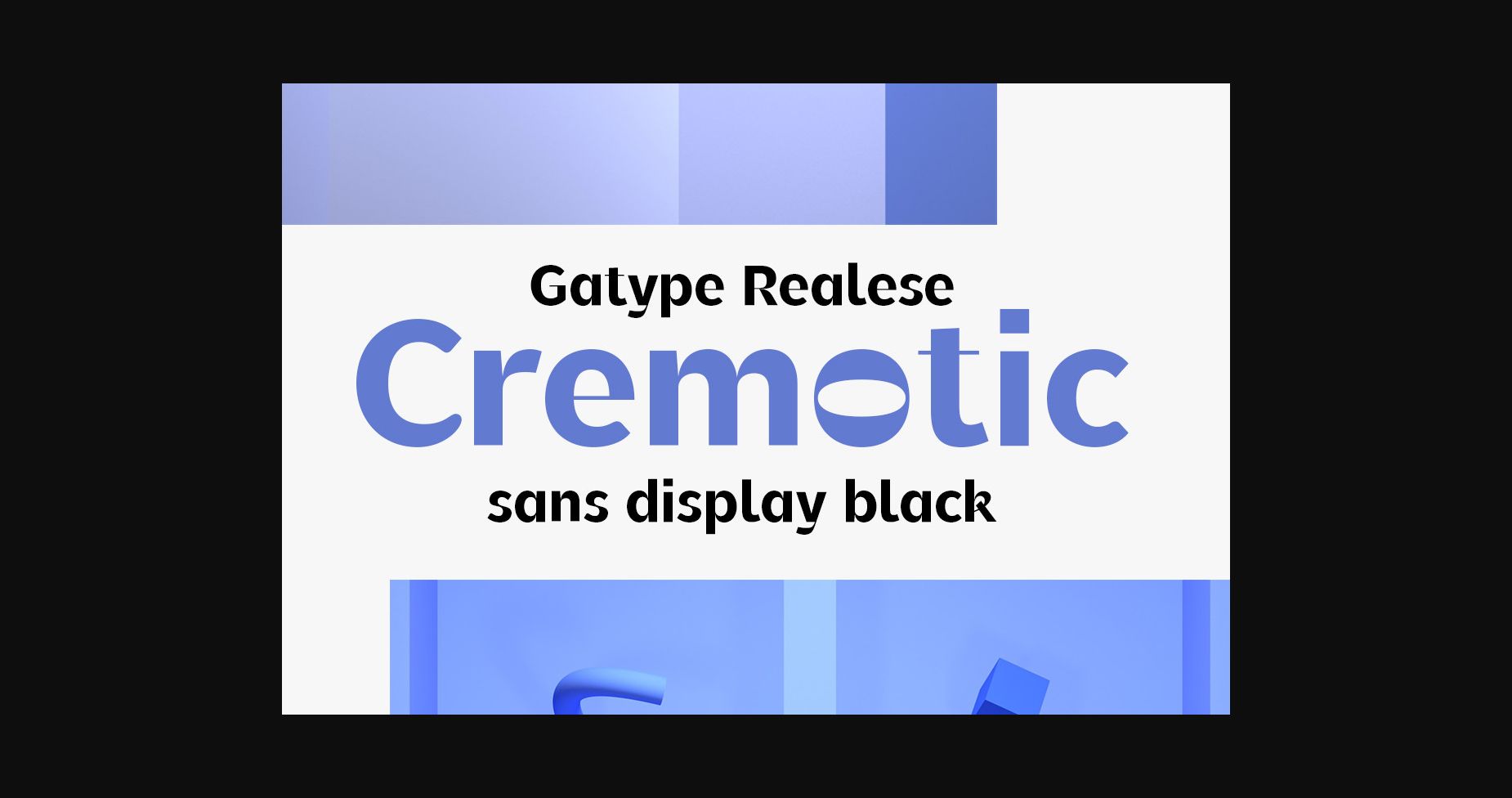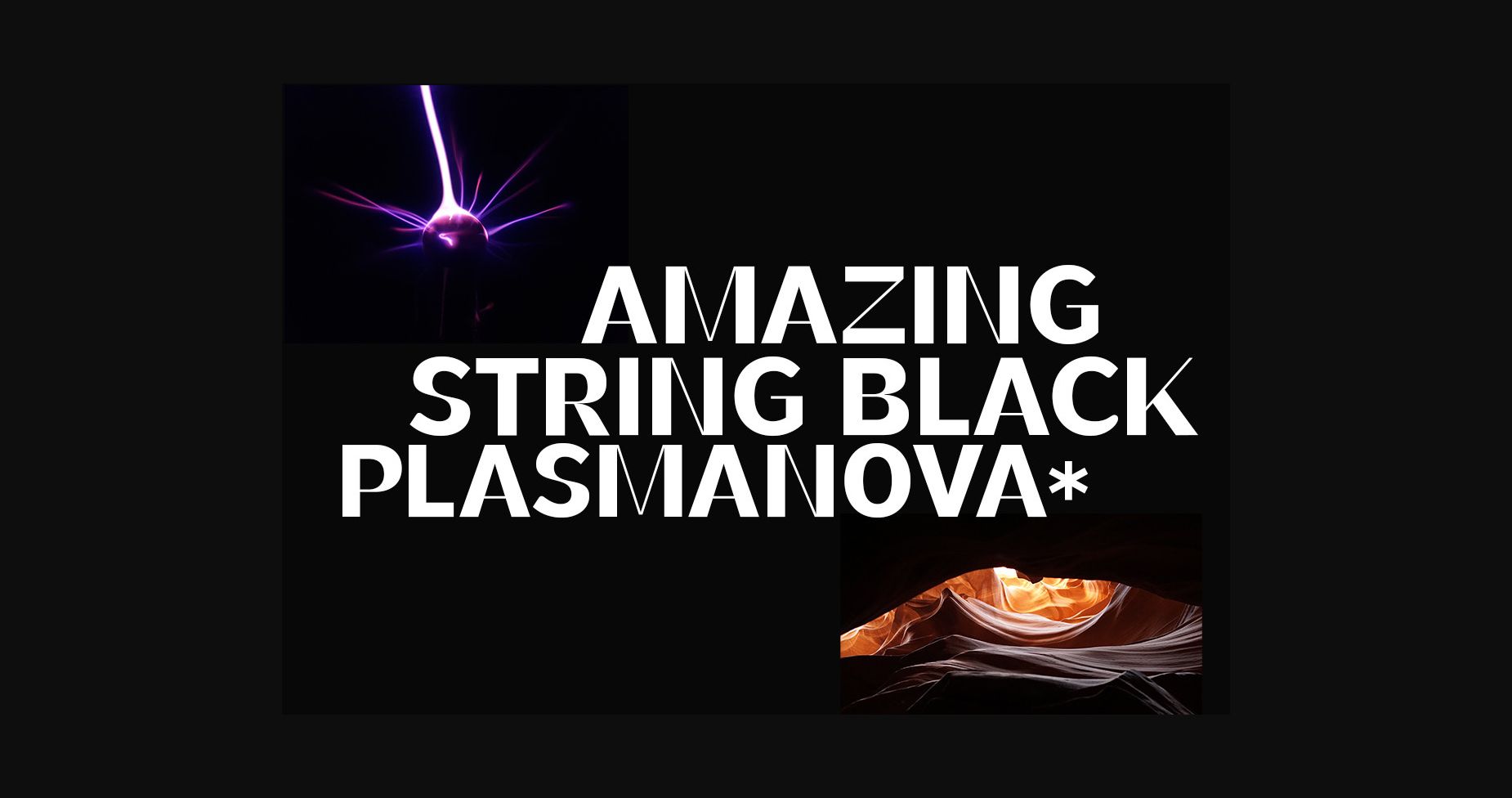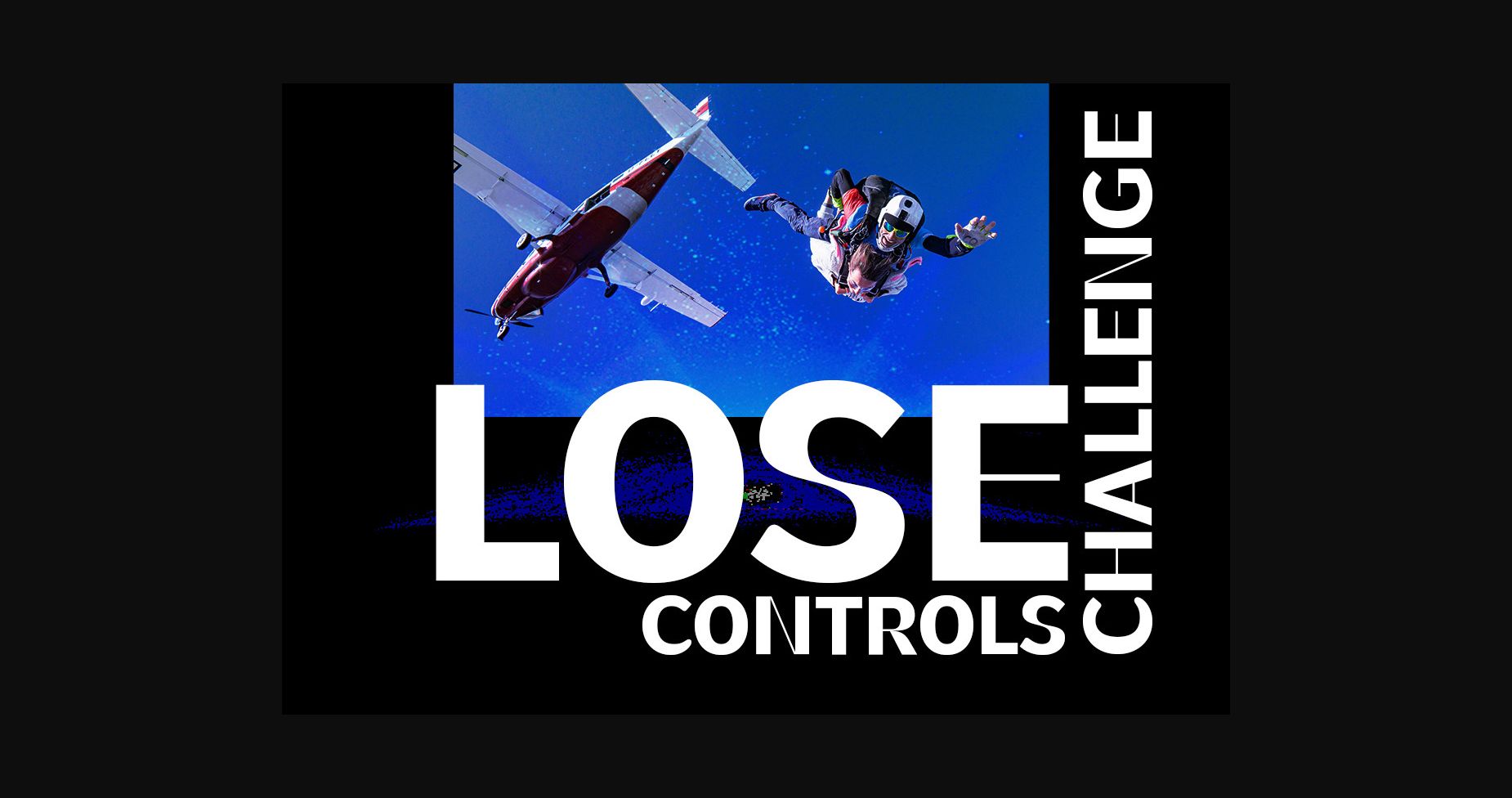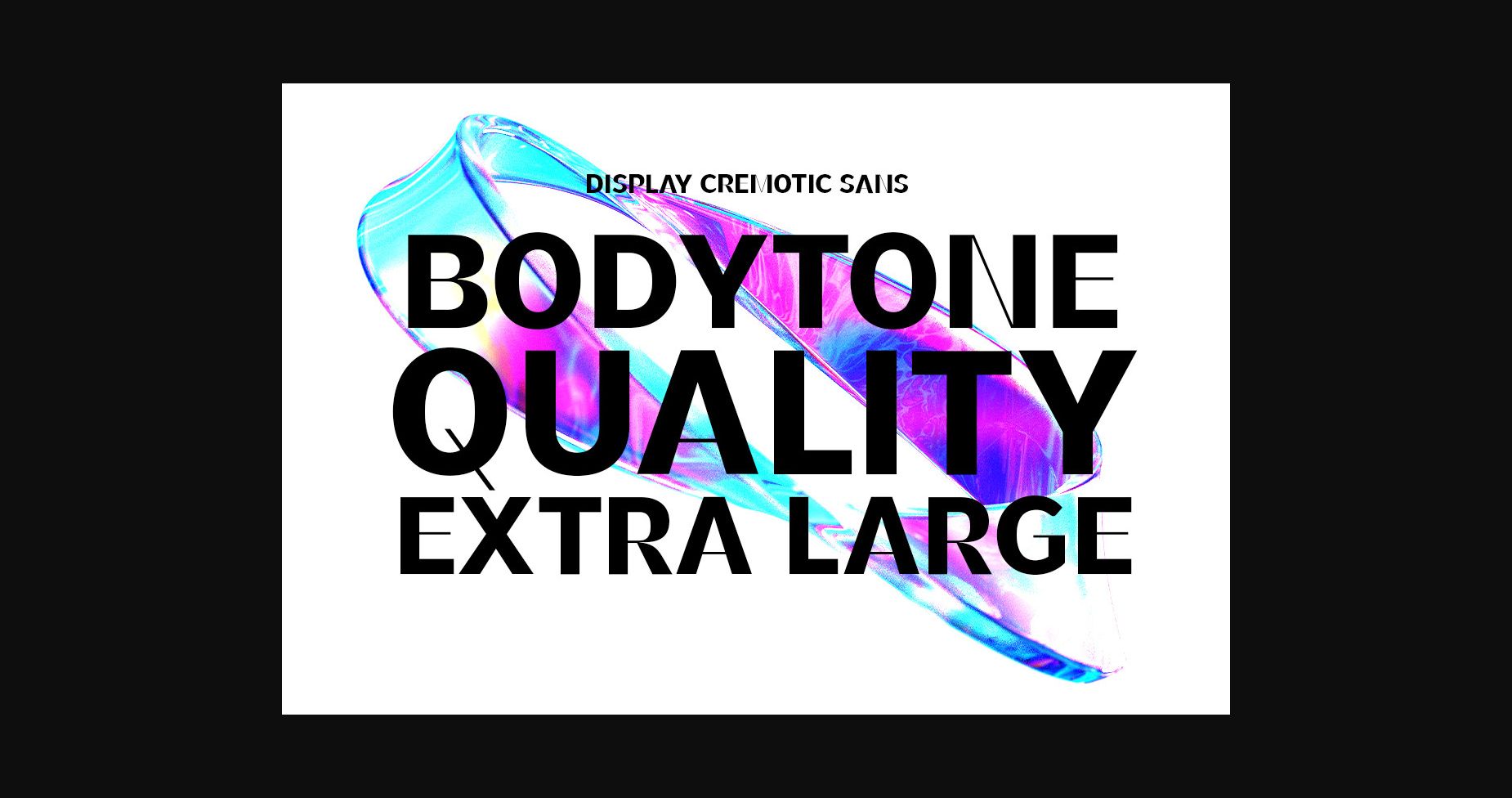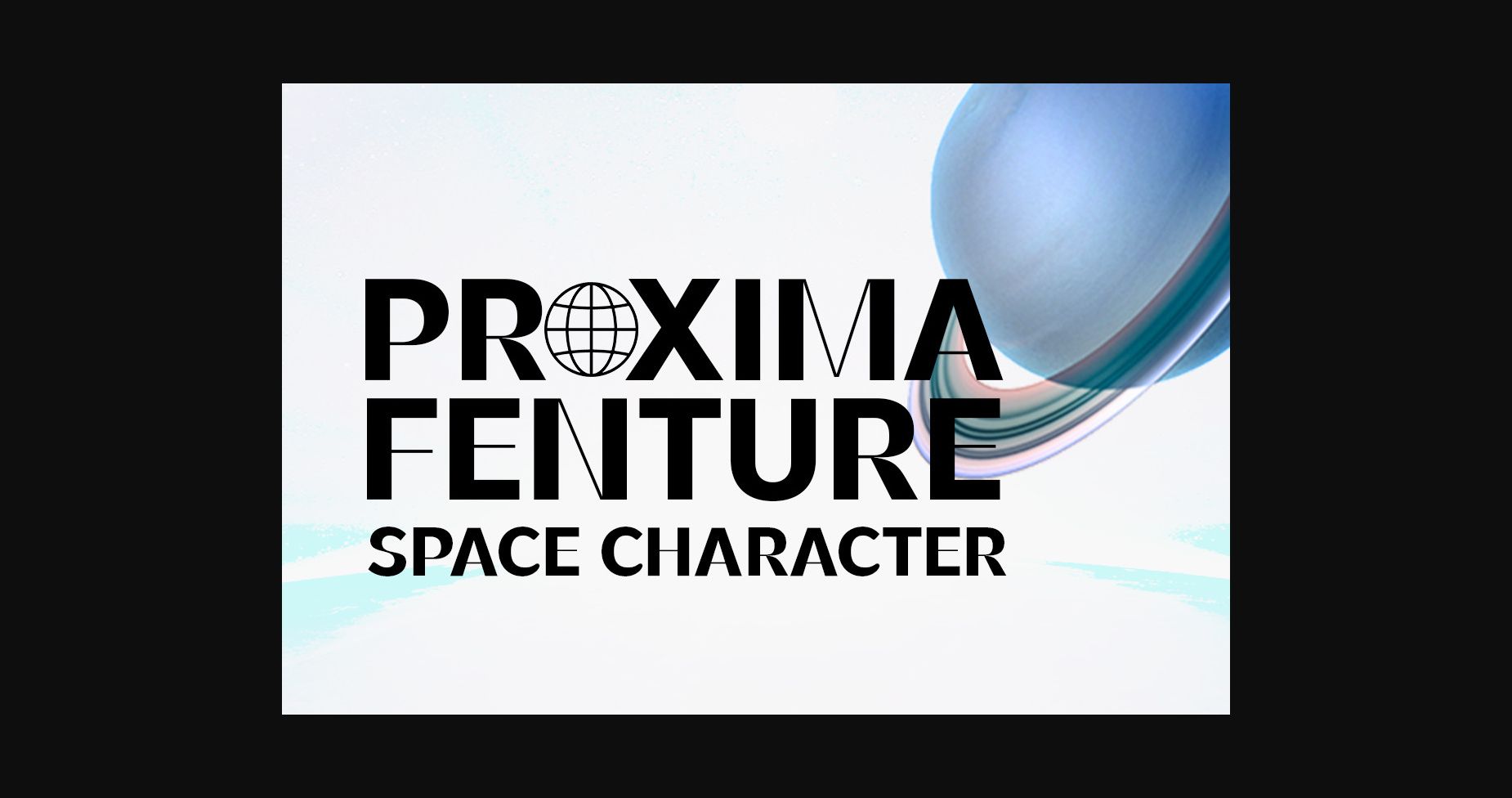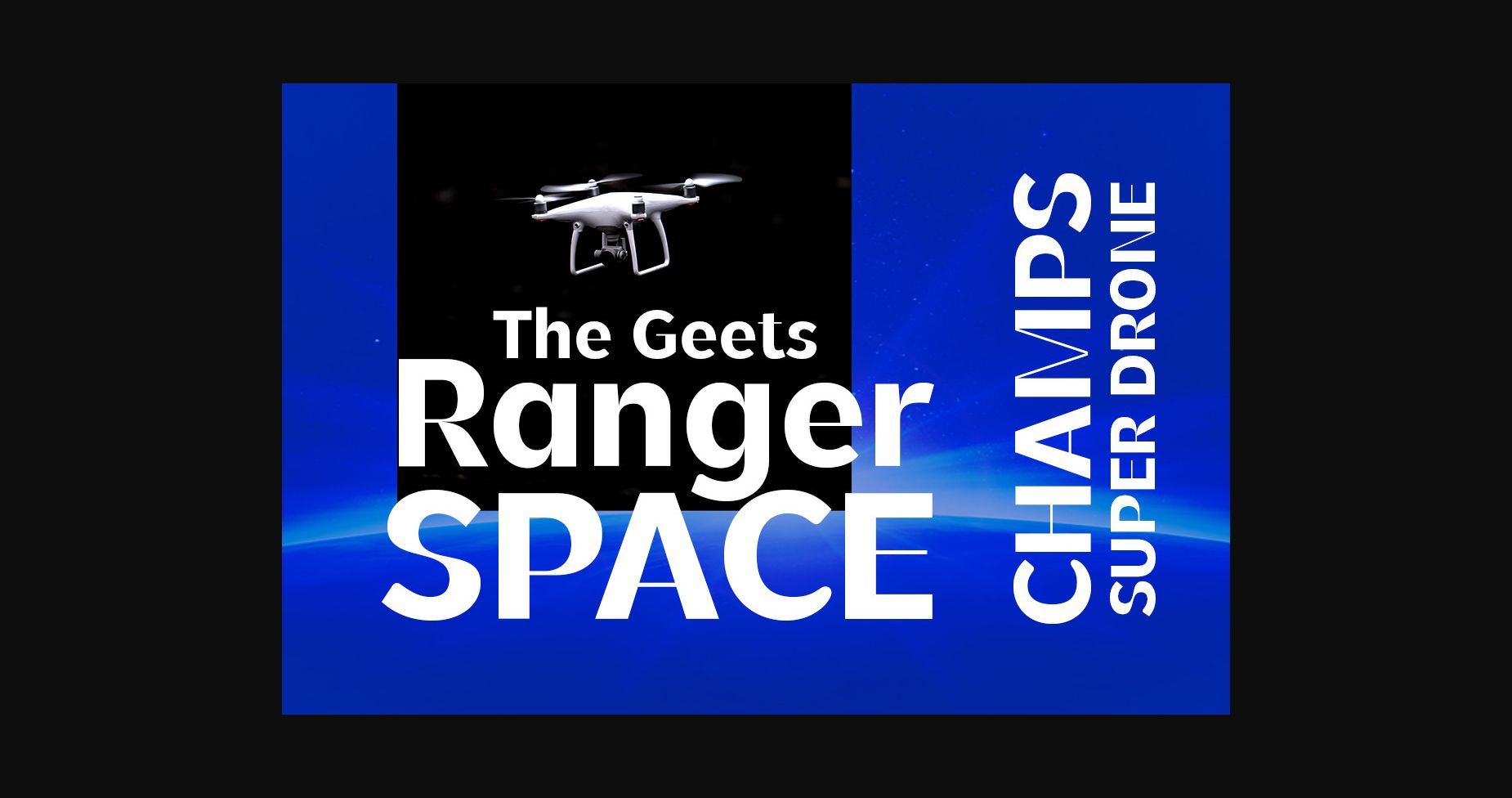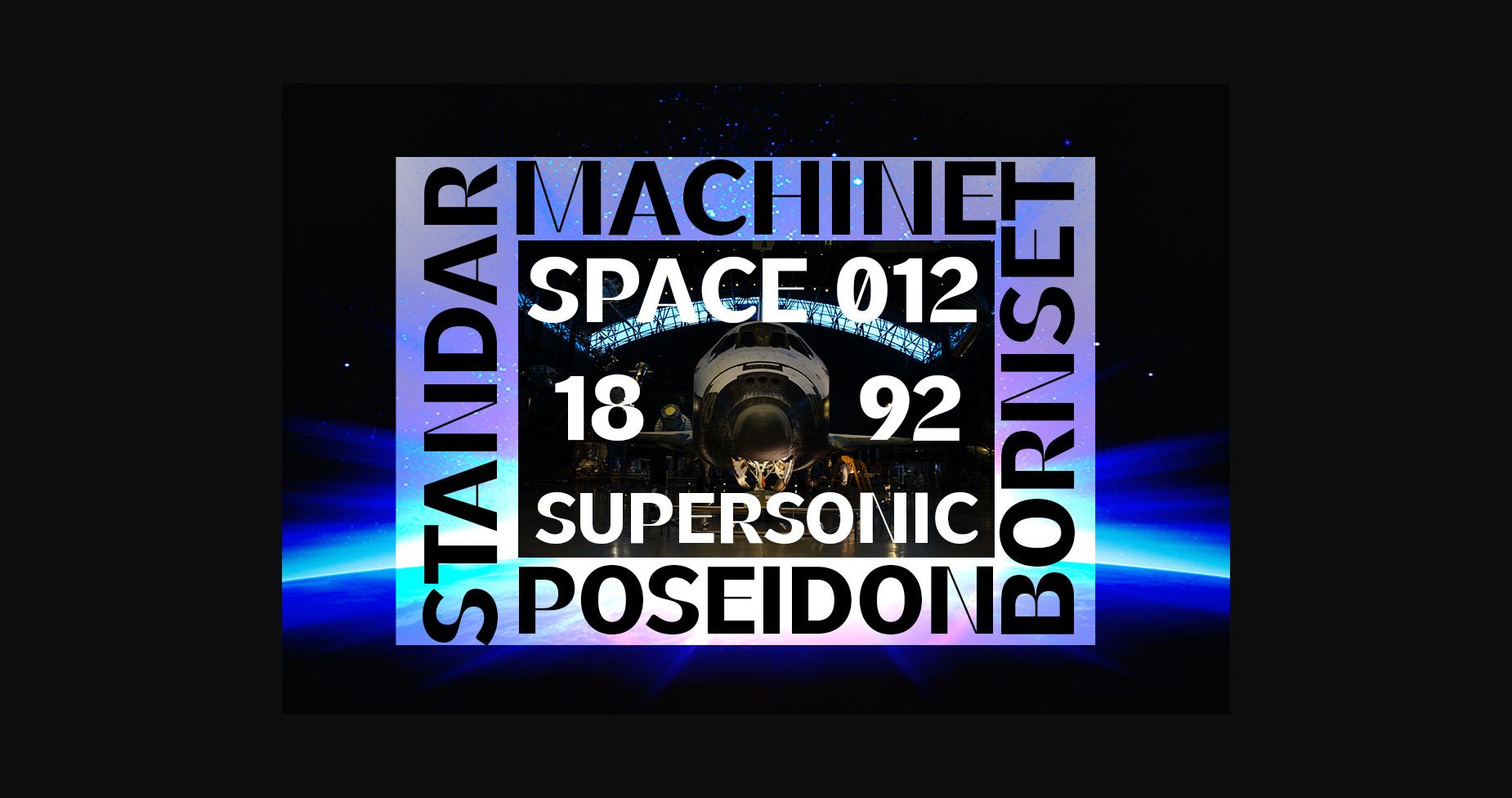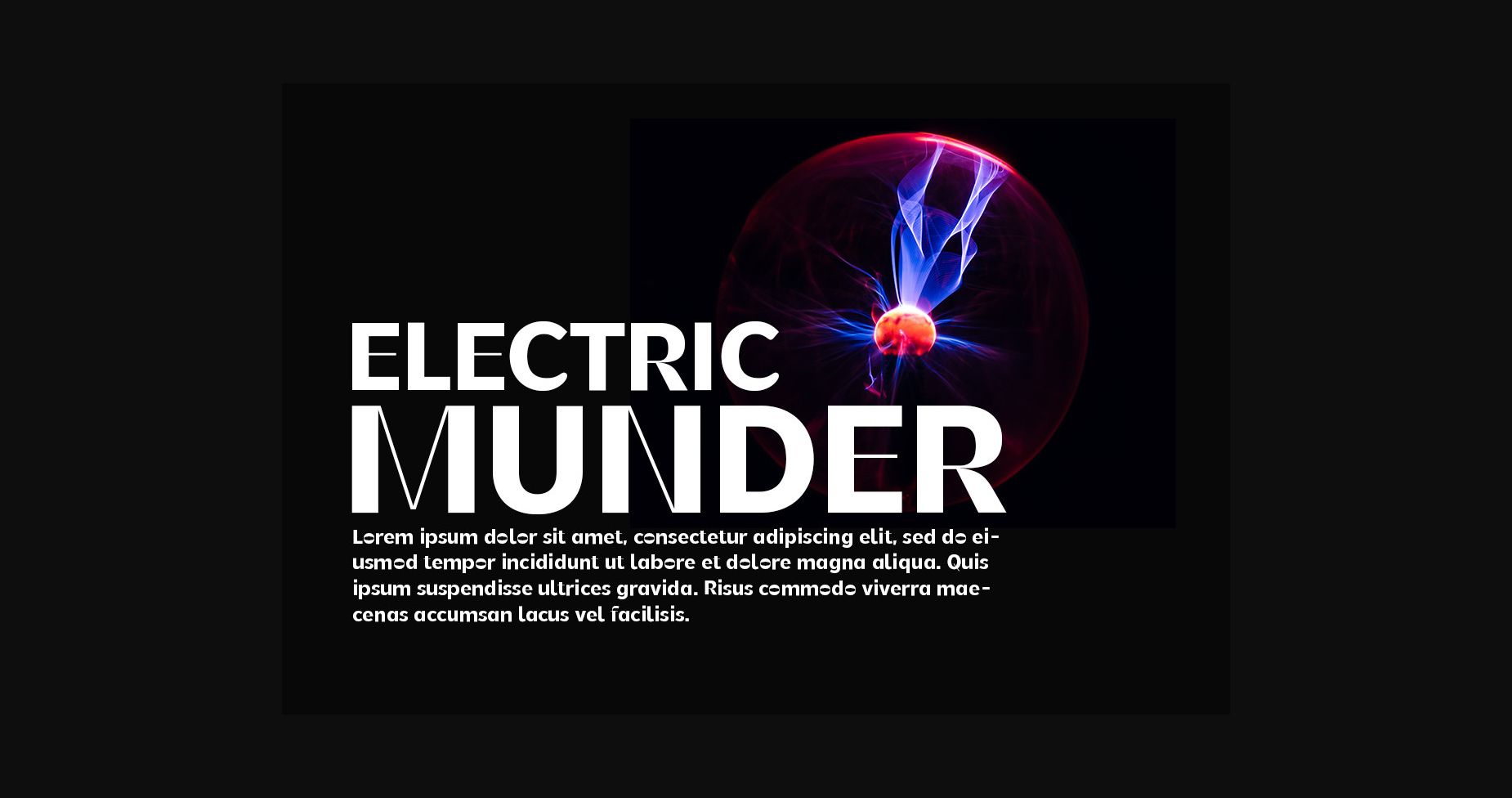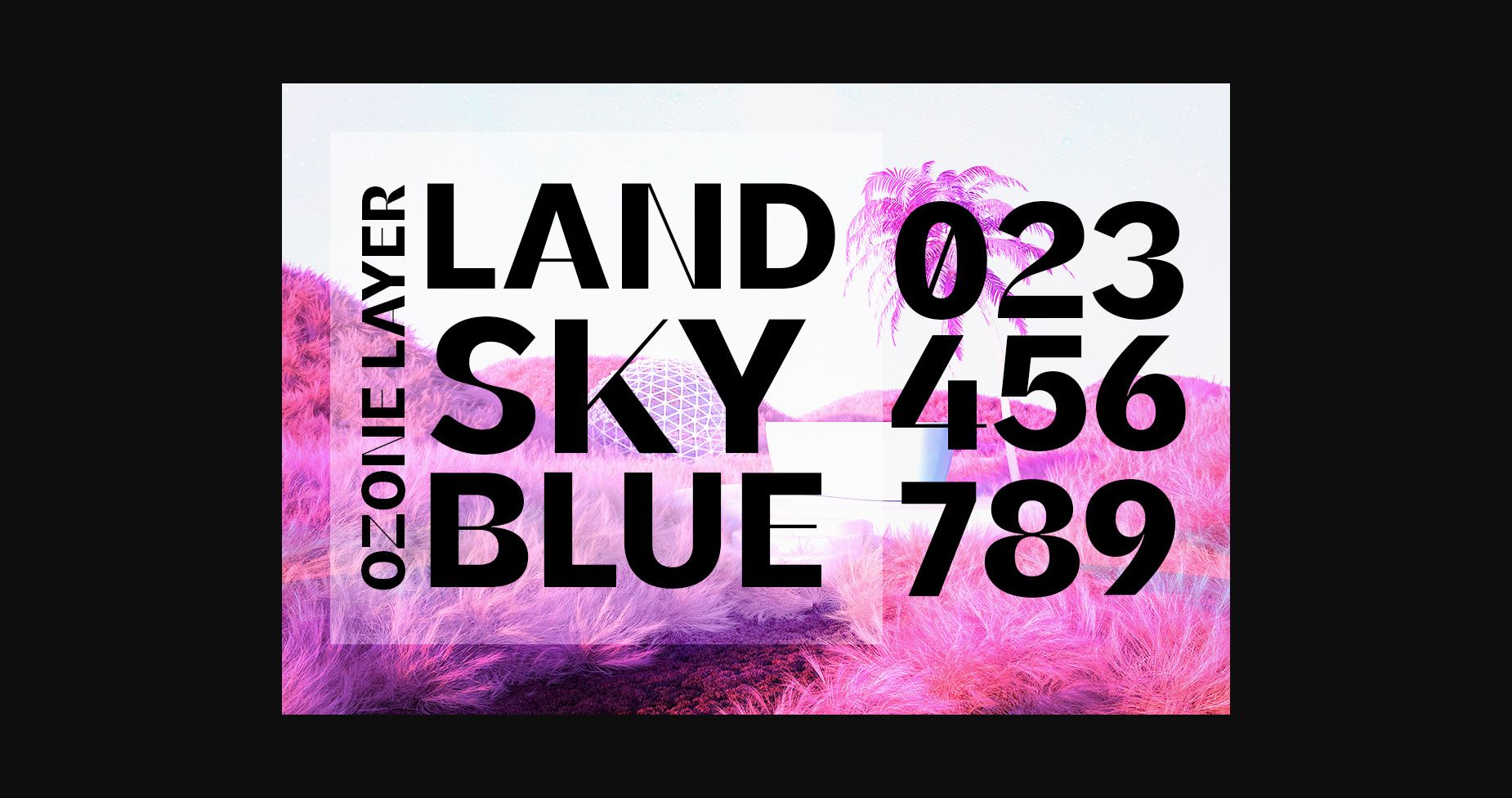
Cremotic is a stylish sans serif font with extreme cuts, sharp angles and interactive straps. It is perfect for logos, banners, cards, web design, product packaging and so much more!